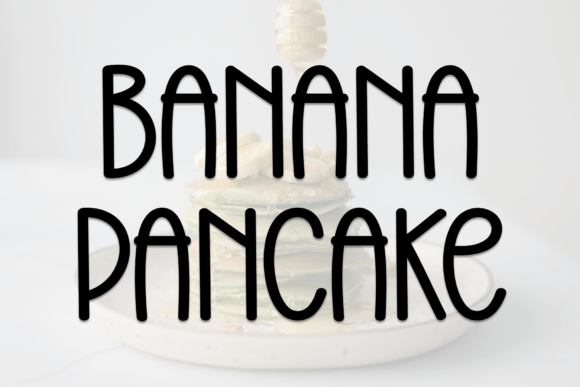
Introducing Banana Pancake Font: The Ultimate Handwritten Marker Font for Your Design Needs
Are you looking for a font that embodies a relaxed and sporty vibe, perfect for adding a touch of elegance and casualness to your designs? Look no further than the Banana Pancake font, a beautiful handwritten font that mimics the look of being drawn with a marker.
What is Banana Pancake Font?
Banana Pancake is a unique and stylish handwritten font, carefully crafted to give your designs a personal and artistic feel. Its marker-like appearance makes it perfect for a wide range of applications, from branding and logos to wedding supplies, greeting cards, and marketing promotions.
Key Features of Banana Pancake Font
Relaxed and Sporty Feel
The Banana Pancake font boasts a laid-back, sporty vibe that’s perfect for designs that require a casual yet stylish touch. Its relaxed feel makes it ideal for use in fashion, lookbooks, and other creative projects where you want to convey a sense of ease and sophistication.
Marker-Like Appearance
One of the standout features of the Banana Pancake font is its marker-like appearance. This gives it a hand-drawn, artistic feel that’s perfect for adding a personal touch to your designs.
Suitable for Luxury and Elegant Designs
Despite its casual feel, the Banana Pancake font is surprisingly versatile and can be used to create luxurious and elegant designs. Its unique blend of style and sophistication makes it perfect for high-end branding, wedding supplies, and other applications where you want to convey a sense of refinement and luxury.
Use Cases for Banana Pancake Font
Branding and Logos
The Banana Pancake font is perfect for creating unique and memorable brand identities. Its marker-like appearance and relaxed feel make it ideal for use in logos, business cards, and other branding materials.
Wedding Supplies
Make your wedding stationery and supplies stand out with the Banana Pancake font. Its elegant and casual feel makes it perfect for use in wedding invitations, programs, and other materials.
Greeting Cards and Stationery
Add a personal touch to your greeting cards and stationery with the Banana Pancake font. Its hand-drawn appearance and relaxed feel make it perfect for use in birthday cards, thank-you notes, and other correspondence.
Fashion and Lookbooks
The Banana Pancake font is a great choice for fashion brands and designers looking to add a touch of elegance and sophistication to their lookbooks and marketing materials.
Marketing Promotions
Use the Banana Pancake font to create eye-catching marketing promotions that stand out from the crowd. Its unique blend of style and sophistication makes it perfect for use in flyers, brochures, and other promotional materials.
Why Choose Banana Pancake Font?
Unique and Handmade
The Banana Pancake font is a one-of-a-kind, handmade font that adds a personal touch to your designs.
Highly Versatile
The Banana Pancake font is surprisingly versatile and can be used in a wide range of applications, from branding and logos to wedding supplies and marketing promotions.
Elegant and Casual
The Banana Pancake font embodies a unique blend of elegance and casualness, making it perfect for designs that require a touch of sophistication and refinement.
In conclusion, the Banana Pancake font is a beautiful and versatile handwritten font that’s perfect for adding a touch of elegance and casualness to your designs. Its marker-like appearance, relaxed feel, and highly versatile nature make it ideal for use in a wide range of applications, from branding and logos to wedding supplies and marketing promotions.